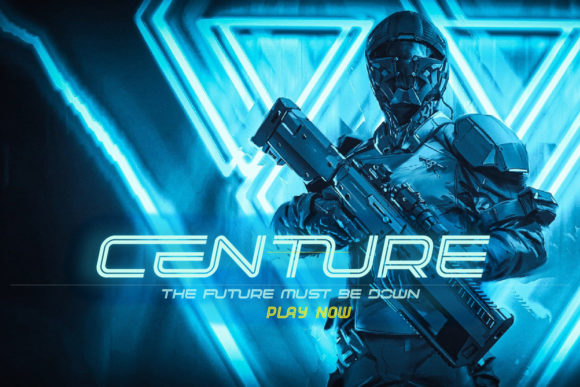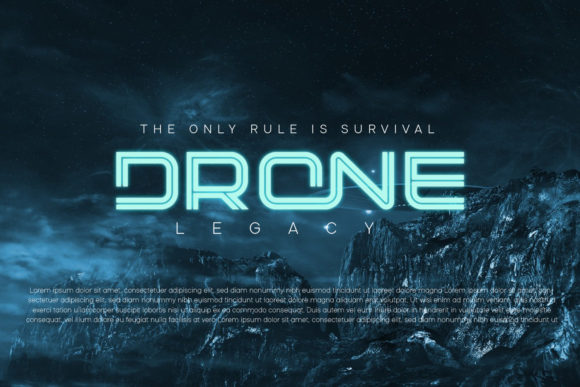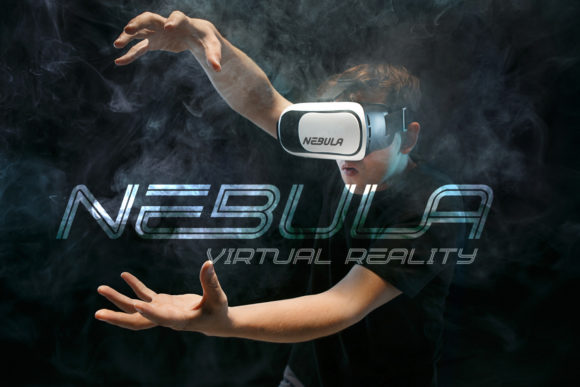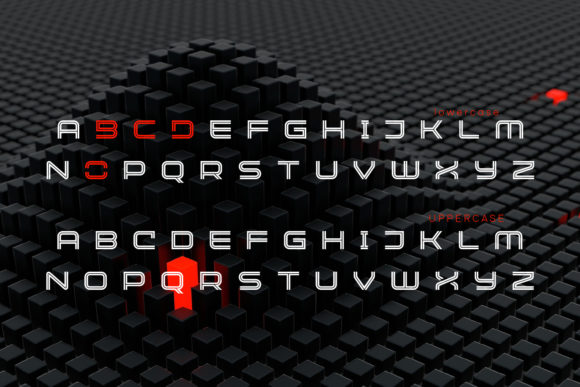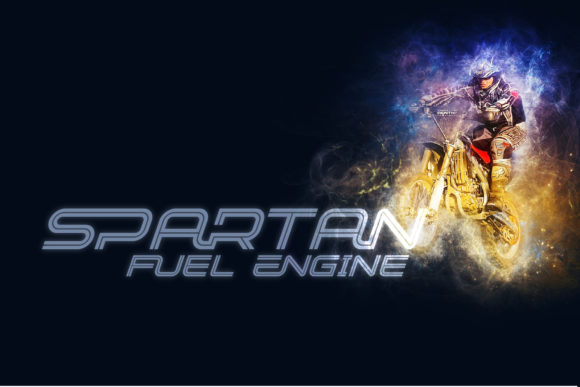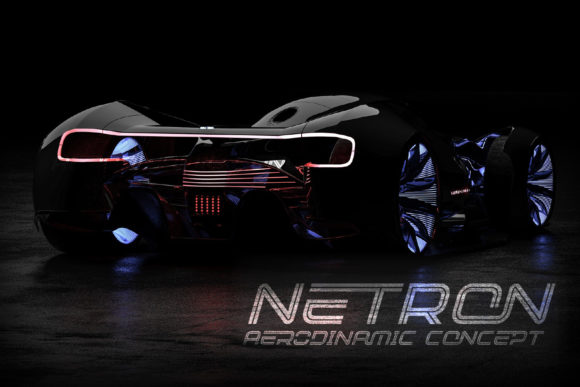
Introducing Chipen Font: The Ultimate Techno-Styled Display Font
Are you tired of using the same old fonts in your designs? Look no further! Chipen Font is here to revolutionize your typography with its bold, techno-styled display font. Incredibly modern and versatile, Chipen Font is a game-changer that will become a major asset in your library.
What is Chipen Font?
Chipen Font is a carefully crafted display font that embodies the essence of modern technology. Its sleek lines, geometric shapes, and futuristic vibe make it perfect for designs that require a cutting-edge look. Whether you’re working on a branding project, a website, or a print design, Chipen Font is sure to make a statement.
Key Features of Chipen Font
- Bold and Eye-Catching: Chipen Font is designed to grab attention. Its bold lines and geometric shapes make it perfect for headlines, titles, and other display text.
- Techno-Styled: Chipen Font has a distinctly techno feel that will give your designs a modern and edgy look.
- Versatile: Chipen Font can be used in a variety of design contexts, from digital to print, and can be easily paired with other fonts to create a unique look.
- Modern and Fresh: Chipen Font has a fresh and modern feel that will keep your designs looking current and on-trend.
Who is Chipen Font for?
Chipen Font is perfect for designers, crafters, and anyone looking to add a touch of modernity to their designs. Whether you’re a:
- Graphic Designer: looking for a bold font to make your designs stand out.
- Web Designer: seeking a modern font to enhance your website’s typography.
- Crafter: wanting to add a personal touch to your DIY projects.
- Marketer: looking for a font that will help your brand stand out.
How to Use Chipen Font
Using Chipen Font is easy! Here are a few tips to get you started:
- Pair it with other fonts: experiment with pairing Chipen Font with other fonts to create a unique look.
- Use it for headlines: Chipen Font is perfect for headlines, titles, and other display text.
- Experiment with colors: try out different colors to see how they affect the overall look and feel of the font.
Benefits of Using Chipen Font
By using Chipen Font, you’ll enjoy a range of benefits, including:
- Increased visibility: Chipen Font is designed to grab attention and make your designs stand out.
- Modern look and feel: Chipen Font will give your designs a fresh and modern look that will keep you ahead of the curve.
- Versatility: Chipen Font can be used in a variety of design contexts, making it a valuable addition to your font library.
In conclusion, Chipen Font is a bold, techno-styled display font that is sure to revolutionize your typography. With its modern and versatile design, Chipen Font is perfect for designers, crafters, and anyone looking to add a touch of modernity to their designs. So why wait? Download Chipen Font today and take your designs to the next level!